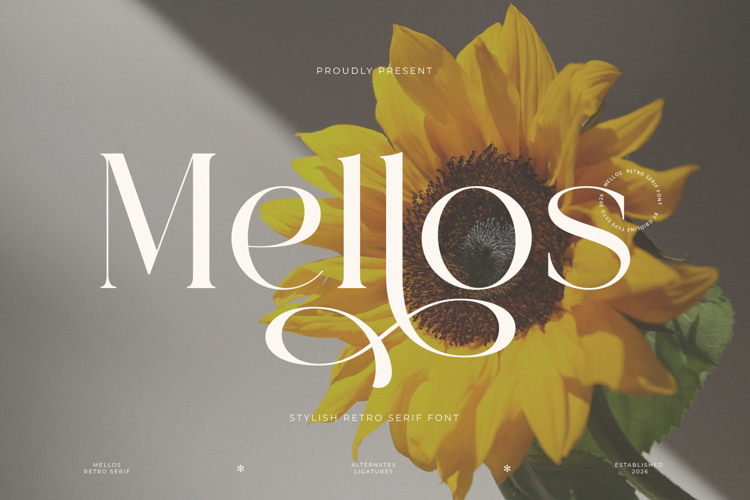
Mellos Font
Mellos is an elegant, high-contrast serif typeface with a modern, minimalist feel. Its refined capitals, sweeping swashes, and unique alternates lend a luxurious, classy style to logos, brand identities, wedding stationery, posters, magazines, and social media graphics. Free for personal use; a commercial license is available from the designer.